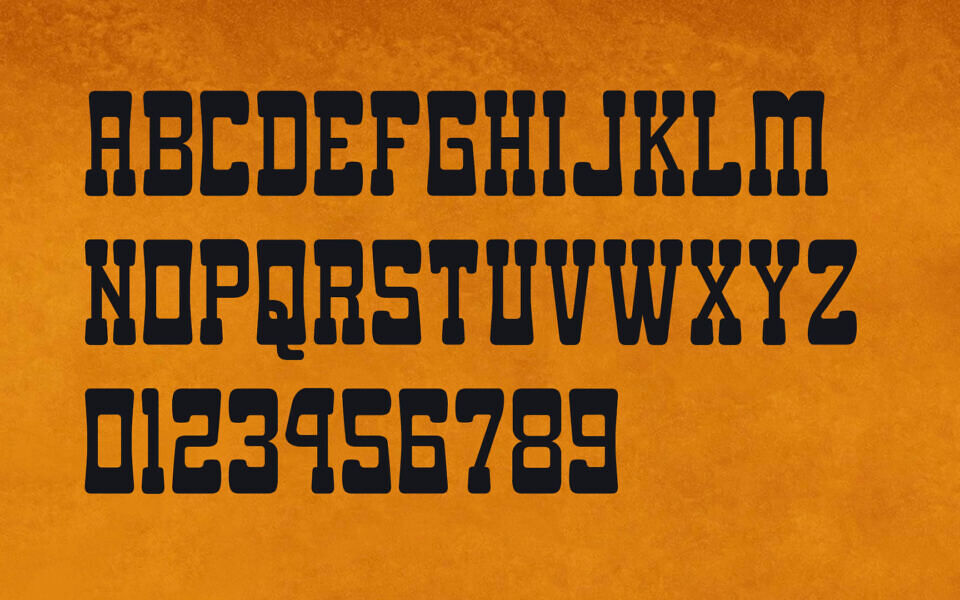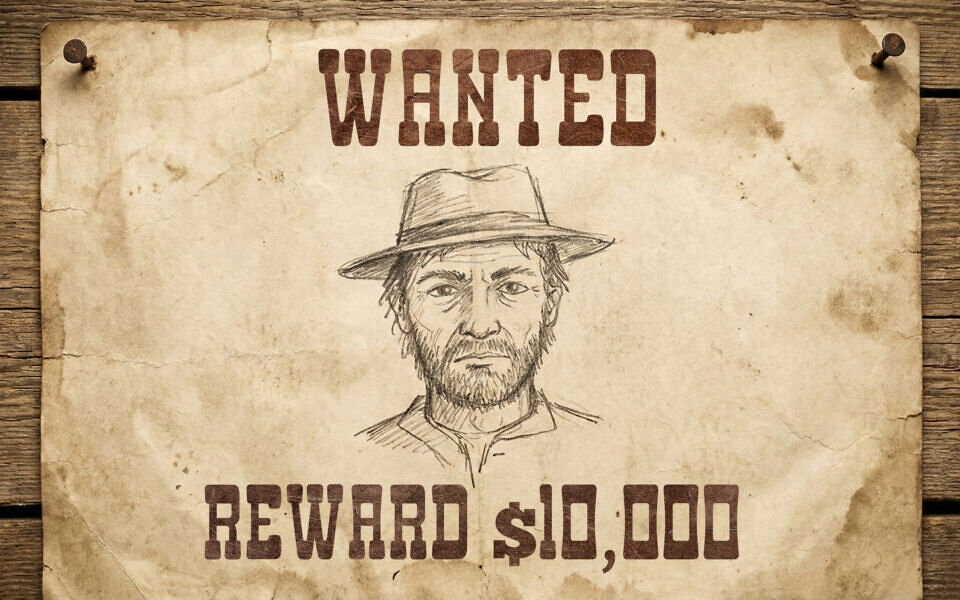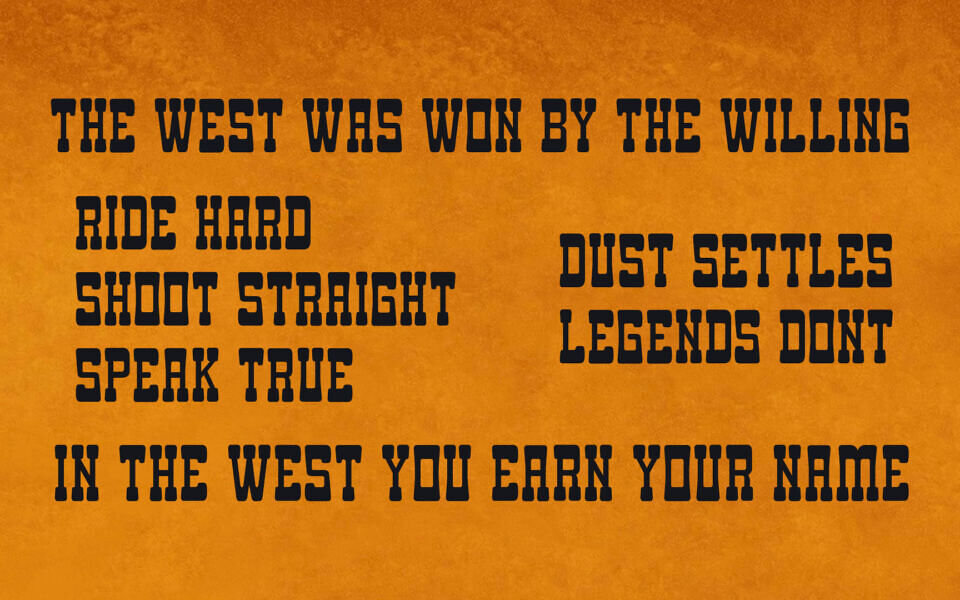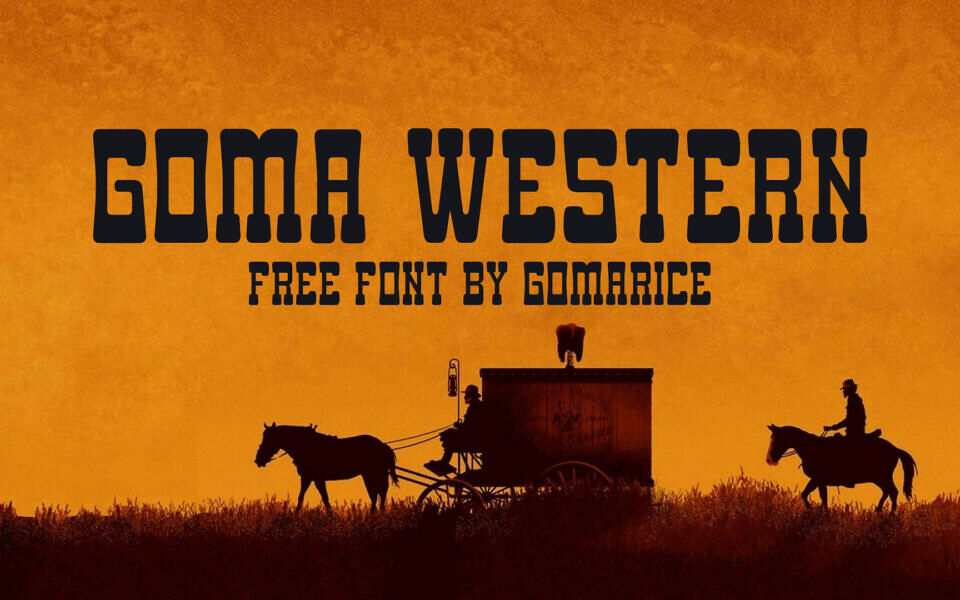
Goma Western Font
Goma Western is slab-serif display font that perfectly captures the gritty essence of the American frontier. Designed by Gomarice, this typeface features bold, blocky letterforms with distinctive “fishtail” serifs and a high-waisted structure.
Its heavy weight and weathered aesthetic make it ideal for vintage posters, western-themed branding, and authentic wanted signs. Whether you’re designing for a modern saloon or a retro cinematic project, this free font delivers timeless, outlaw-inspired character to every headline.